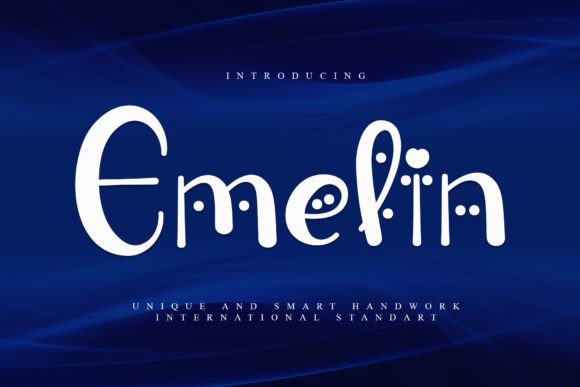
**Introducing Emelin Font: The Ultimate Display Typeface for Your Creative Endeavors**
Step into a world of captivating designs with Emelin Font, the playfully handwritten display typeface that will ignite your imagination. Crafted by the talented Flower, Emelin is a whimsical and expressive font, perfect for adding a touch of charm to your designs.
Whether you're a seasoned graphic designer or a budding creative, Emelin's unique character will elevate your projects to new heights. Its playful strokes and charming curves exude a sense of warmth and personality, making it ideal for display text, branding, packaging, and any other design that demands attention.
But Emelin is more than just a pretty face. Its versatility extends to a wide range of styles, from elegant and sophisticated to bold and playful. Experiment with different sizes and colors to create captivating headlines, eye-catching logos, or simply add a touch of whimsy to your social media posts.